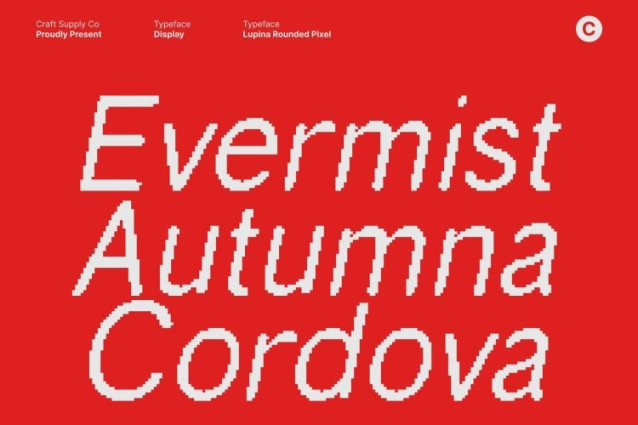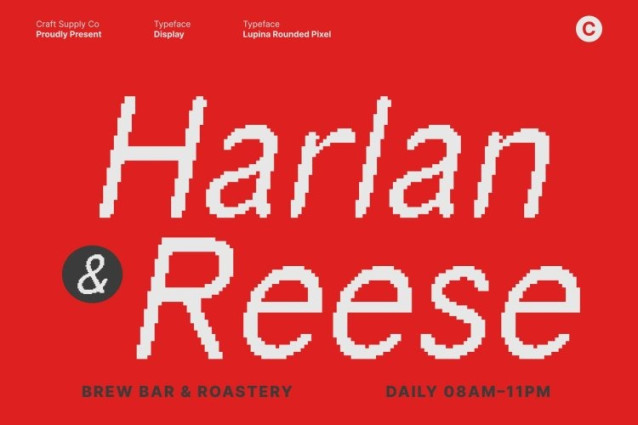
Lupina Rounded Pixel Font
Lupina Rounded Pixel Font This is a refined sans serif display font designed with clean lines and a strong corporate aesthetic. Its polished structure brings a professional and captivating presence, making it ideal for branding, editorial layouts, posters, and any design that requires clarity, confidence, and modern sophistication.
Pixel Effect for a Modern 8-Bit Digital Personality
Infused with a subtle yet expressive pixel effect, this font bridges the gap between sleek corporate design and digital artistry. The 8-bit influence adds a unique personality to each character, giving your project a modern, tech-inspired flair and a visually distinctive identity perfect for digital-centric branding.
Sleek Modernity with a Touch of Craftsmanship
While the overall design is clean and contemporary, the rounded shapes and pixel texture hint at manual detailing, adding warmth and character. This balance of precision and artistry enhances readability while giving your titles and logos an eye-catching, aesthetically pleasing appeal.
Perfect for Branding, Editorials, and Creative Displays
This font shines in professional and creative settings alike. Whether you’re building a corporate identity, designing stylish editorial spreads, crafting sleek posters, or developing digital interfaces, this font elevates your work with a sophisticated blend of modern form, subtle retro flair, and polished visual harmony.